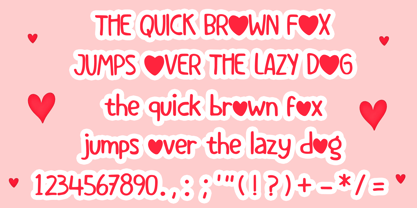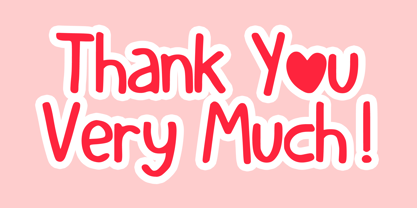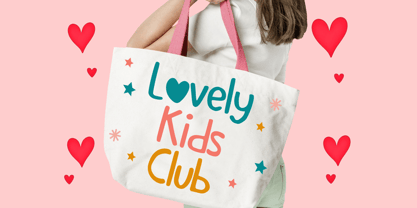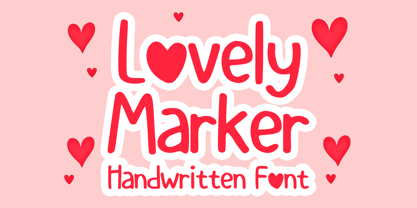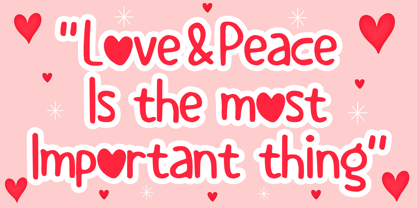
Lovely Marker
by Mvmet
Introducing Lovely Marker, a jubilant and easy-to-use marker font inspired by the whimsical spirit of Valentine's Day. This versatile font is perfect for enhancing a wide range of design projects, from t-shirt designs to book covers, bringing life to every creation. Its playful charm makes it ideal for sticker design, ensuring logos stand out, enlivening comic illustrations, and even for casual daily typing tasks. Lovely Marker not only enhances your designs but infuses them with an irresistible delightful coolness!
Designers: Gabriel Valentinus
Foundry: Mvmet
Mvmet is an Indonesia-based font studio which began making fonts in early 2020. Mvmet strives to make fonts fun and accessible for both the average computer user and professional designers, with original experimental fonts and affordable trend-setting commercial fonts. Mvmet also creates custom fonts for companies who want exclusive rights and a specific design for a typeface. Clients who have used Mvmet’s custom font services include some company in Indonesia and abroad.